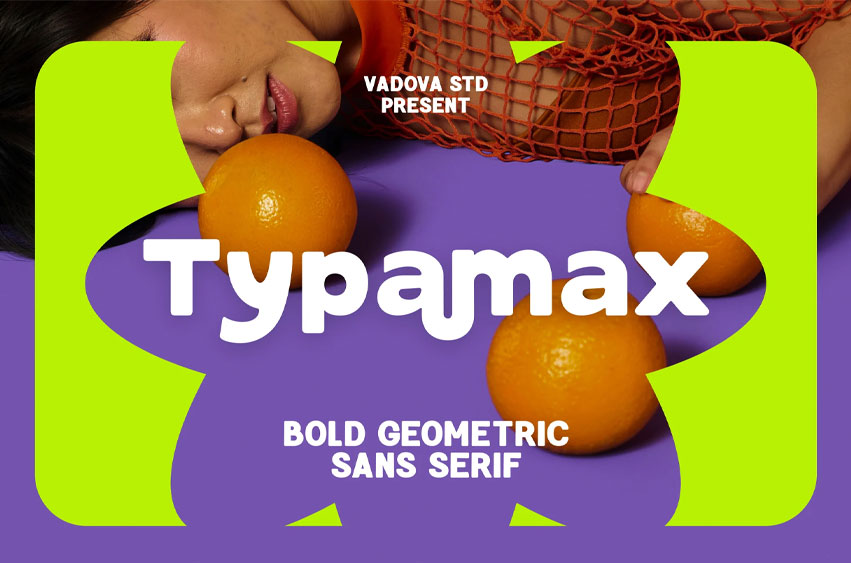
Typamax Font Bold Geometric Sans Serif is a bold geometric sans serif typeface packed with playful energy and modern aesthetics. Its chunky letterforms, clean structure, and rounded edges give it a friendly, approachable vibe—perfect for youth-focused branding, vibrant posters, sports packaging, music festival graphics, and lifestyle campaigns. Typamax is optimized for both print and screen projects that need to stand out with confidence and creativity.